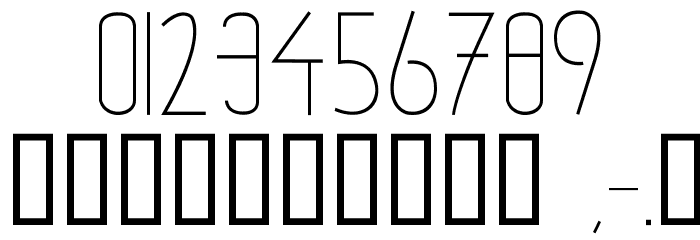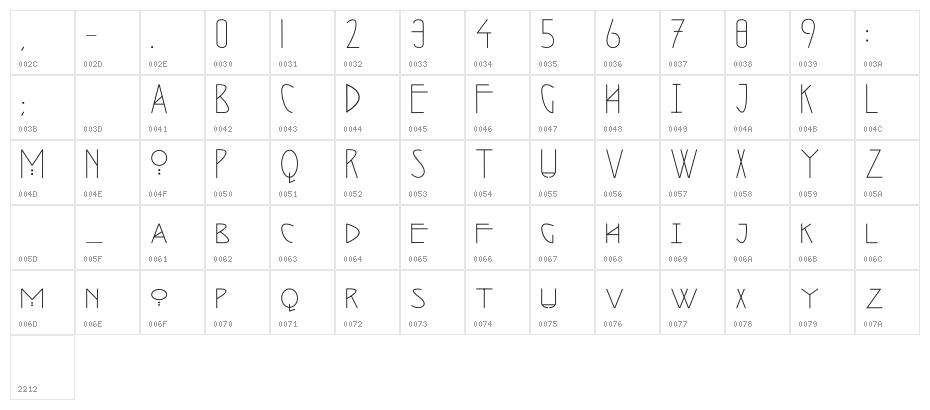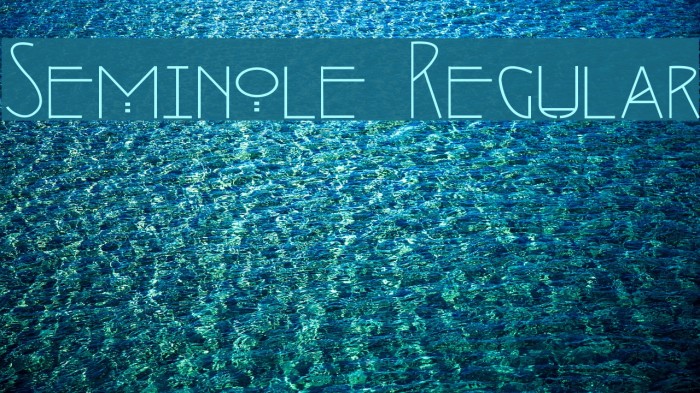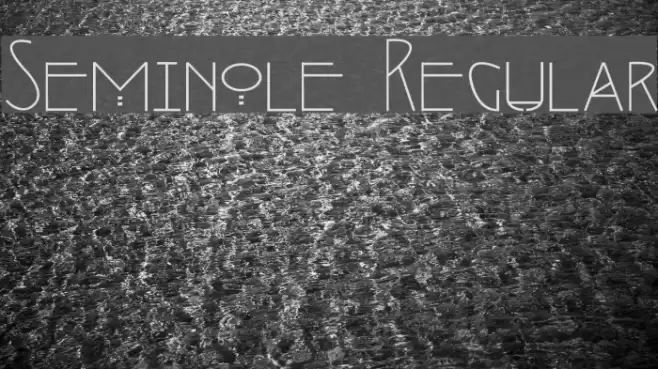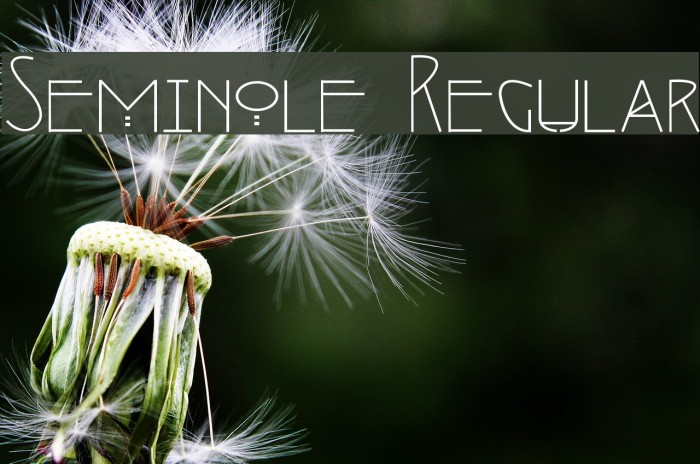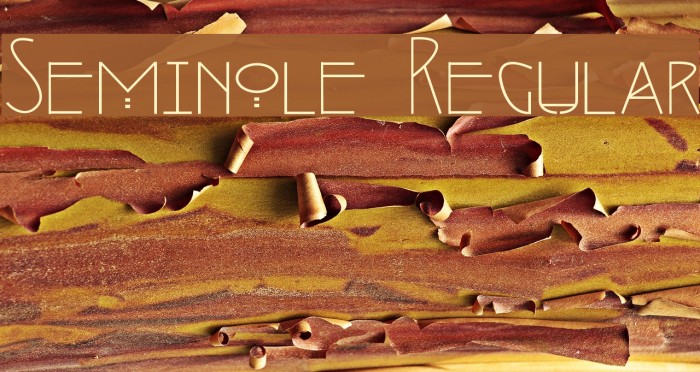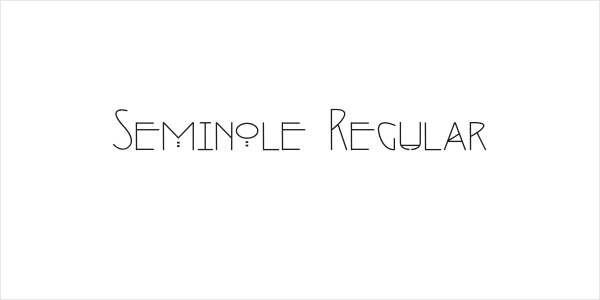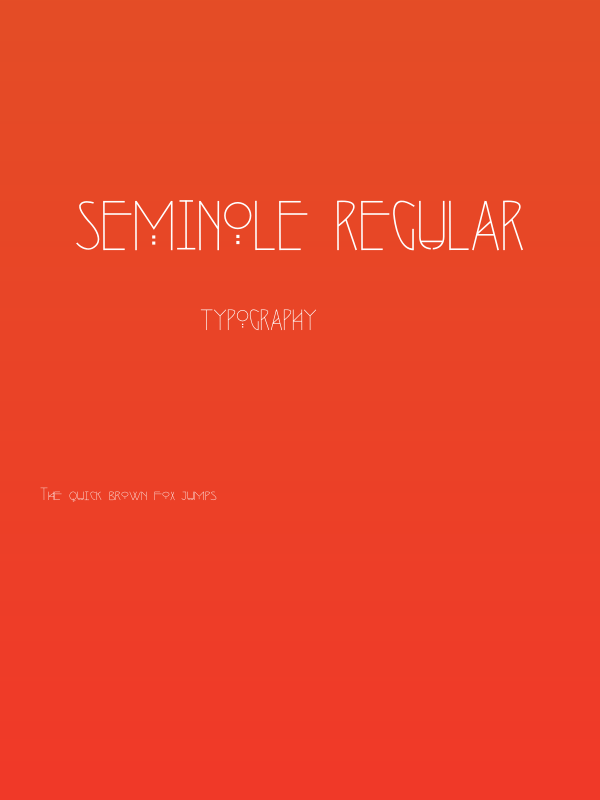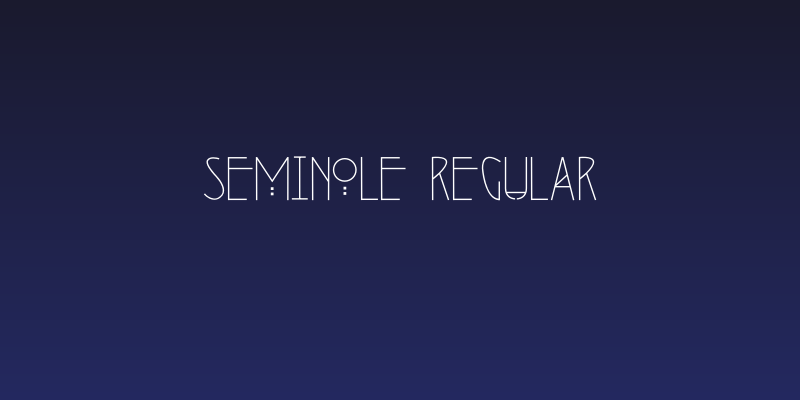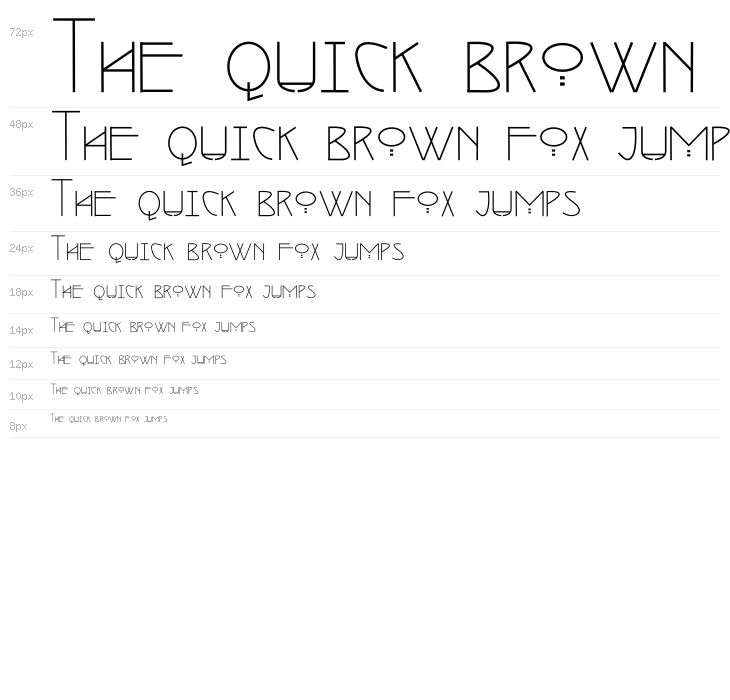
Seminole Regular Font
Seminole Regular Description
This font features a unique and modern design with a geometric and minimalist approach. The uppercase letters are tall and narrow, with distinct angular cuts and a consistent stroke width that gives it a clean and structured appearance. The lowercase letters maintain the same geometric style, offering a cohesive look across both cases. Numbers are designed with the same attention to geometric precision, ensuring readability and style. The special characters are creatively integrated, maintaining the overall aesthetic of the font. This font's design is both artistic and functional, making it suitable for a variety of creative applications.